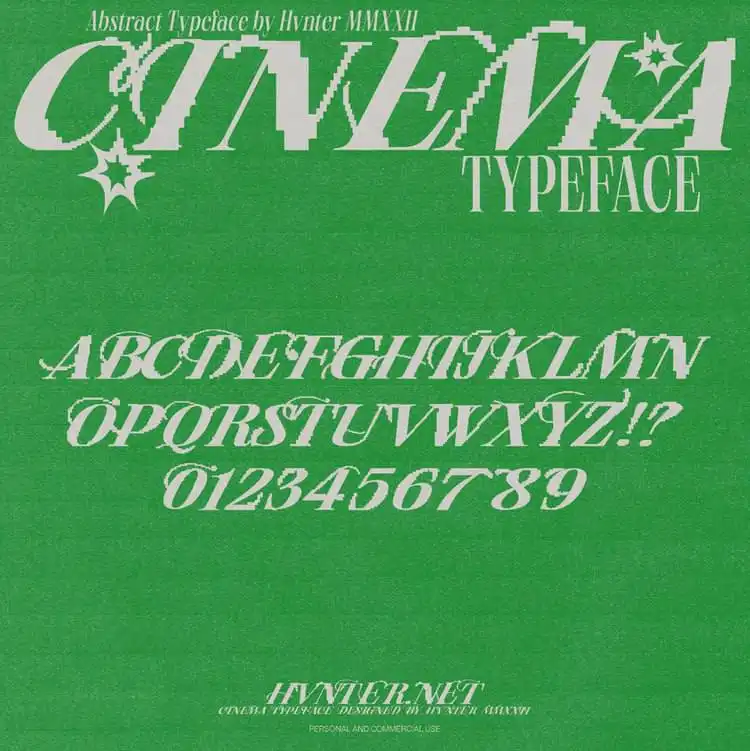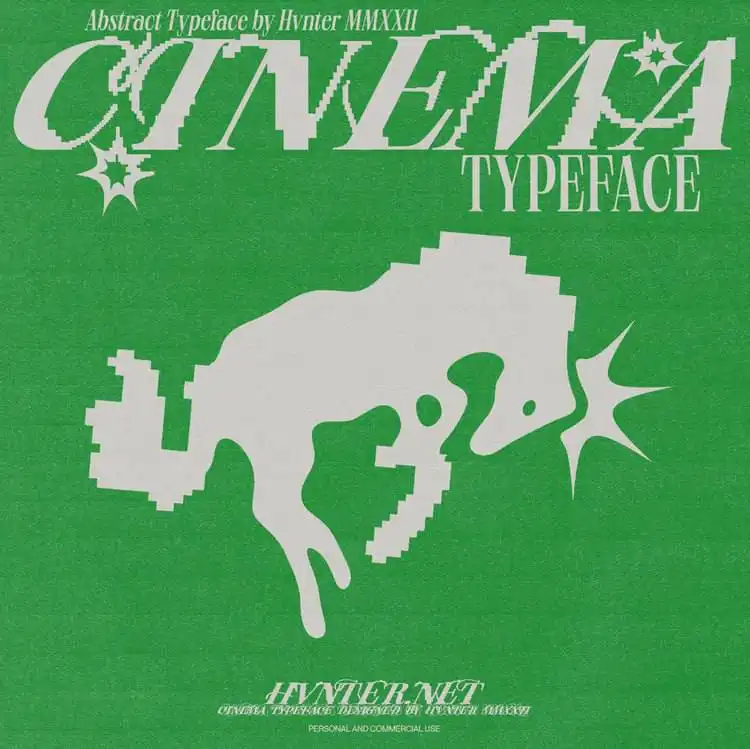
Looking for a stunning font that captures the essence of cinematic flair? The Cinema Typeface is a digital download that offers instant access to a unique blend of modern and retro styles! 🎬✨ This typeface is perfect for designers who want to add a touch of drama and creativity to their projects.
The Cinema Typeface is an abstract hybrid font that beautifully merges clean forms with pixelated accents. Whether you’re designing movie posters, headlines, or any creative project, this font will bring your vision to life! With its A-Z characters, numbers, and basic symbols included, you’ll have everything you need to create captivating designs. 🖌️
- Hybrid Design: Combines elegant and edgy elements for a unique look.
- Versatile Use: Perfect for movie posters, titles, and creative branding.
- Complete Character Set: Includes A-Z, 0-9, and basic symbols for all your design needs.
This typeface is ideal for:
- Graphic Designers
- Movie Poster Creators
- Branding Experts
- Creative Agencies
- Anyone looking to add a cinematic touch to their designs!